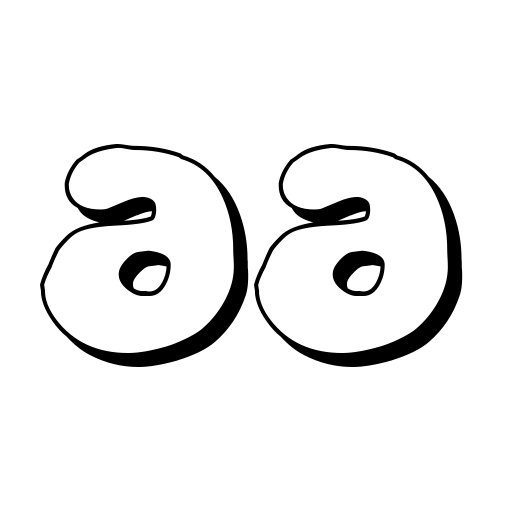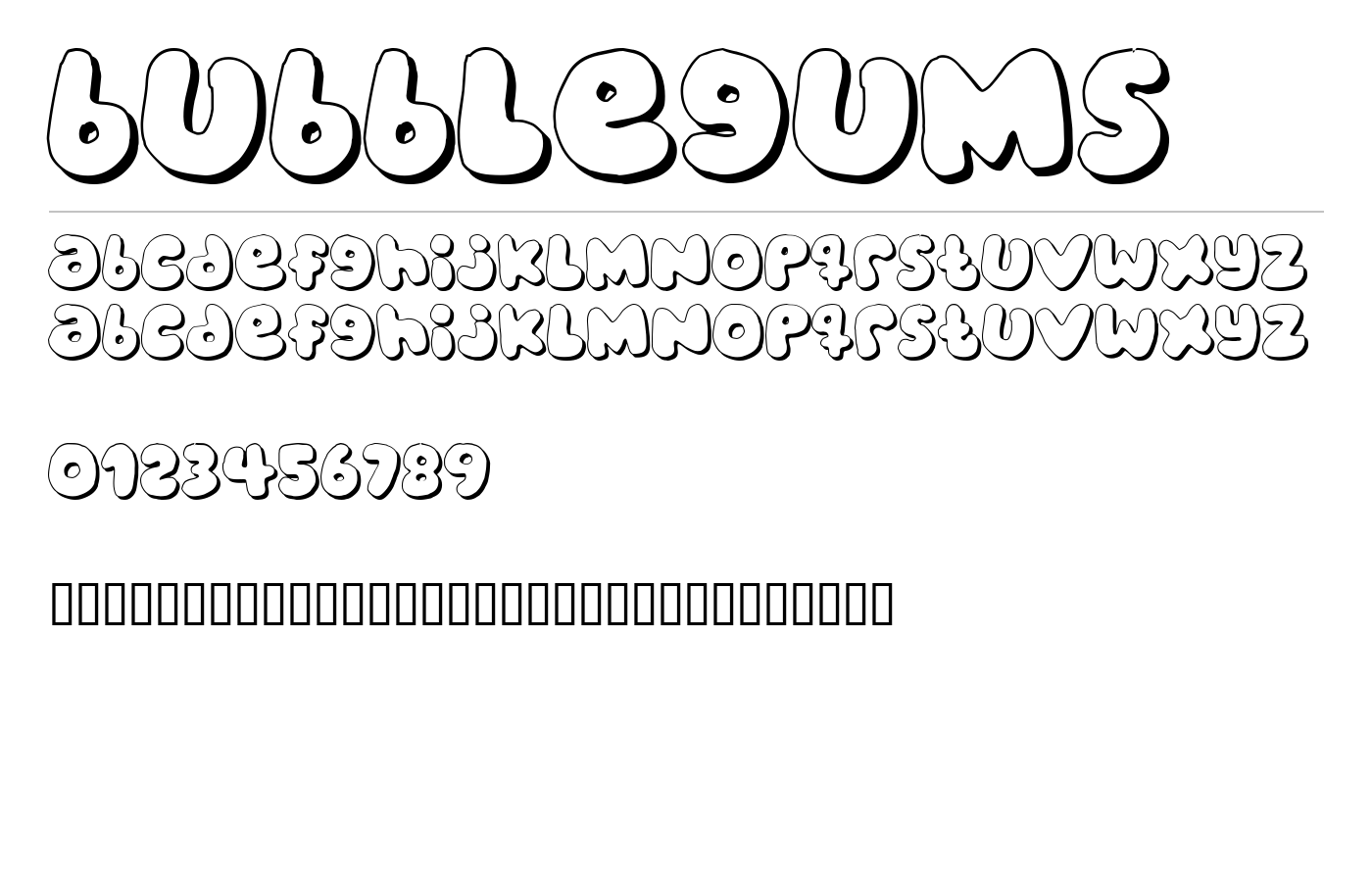
Bubblegums is a playful, rounded display font with a bold, bubble-like style that evokes a fun and whimsical mood. Its soft, thick strokes and irregular shapes give it a friendly, approachable feel, making it perfect for children’s products, party invitations, or casual branding that wants to convey joy and creativity. This font stands out best in headlines, logos, and designs where a lively, informal vibe is desired.
bubblegums Font